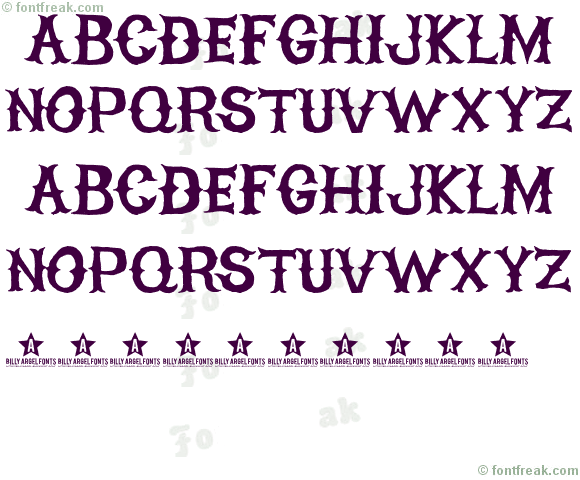
HIGHONFIRE
About HIGHONFIRE
The HIGHONFIRE font, designed by Billy Argel Fonts, is a striking decorative typeface that embodies a bold and edgy aesthetic. This font is characterized by its unique, stylized letterforms that feature sharp, pointed edges and a slightly distressed appearance, giving it a rugged, rebellious vibe. The stroke weight is varied, with thicker sections contrasted by delicate details, which enhances its visual interest and dynamic quality. The spacing is thoughtfully arranged to allow for readability while maintaining an artistic flair, making it a captivating choice for various design applications.
This font is particularly well-suited for use in eye-catching movie posters, where its dramatic style can effectively convey themes of action or suspense. Additionally, it works wonderfully for band merchandise and album covers, capturing the essence of music genres that lean towards the alternative. HIGHONFIRE is also a great option for restaurant menus, especially for establishments with a casual or rustic ambiance, as it adds a touch of character and warmth to the dining experience. Furthermore, graphic designers will appreciate its versatility for branding projects that require a distinctive touch, making it a favorite among small business owners looking to create memorable logos.
Targeted at graphic designers, content creators, and small business owners, this font offers an opportunity to stand out in a crowded market. The HIGHONFIRE font free download opens up creative possibilities for those seeking to add a bold statement to their projects. Its unique style and dynamic characteristics ensure that it will not only capture attention but also leave a lasting impression. Choosing HIGHONFIRE means embracing a font that embodies individuality and creativity, making it an exceptional addition to any designer's toolkit.